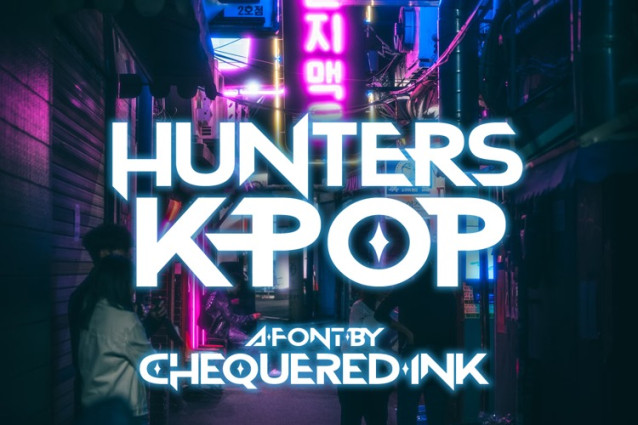
Hunters K-Pop Font
Hunters K-Pop Font a strong, confident and powerful typeface designed to suit sports logos, club branding, apparel applications, labels and more.